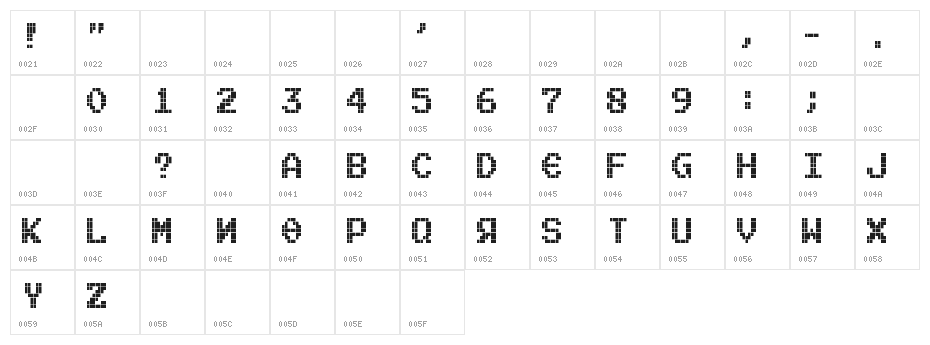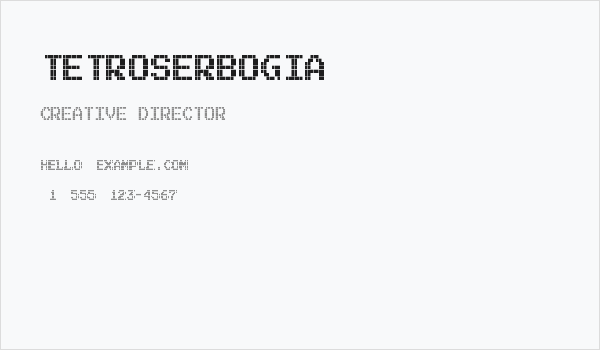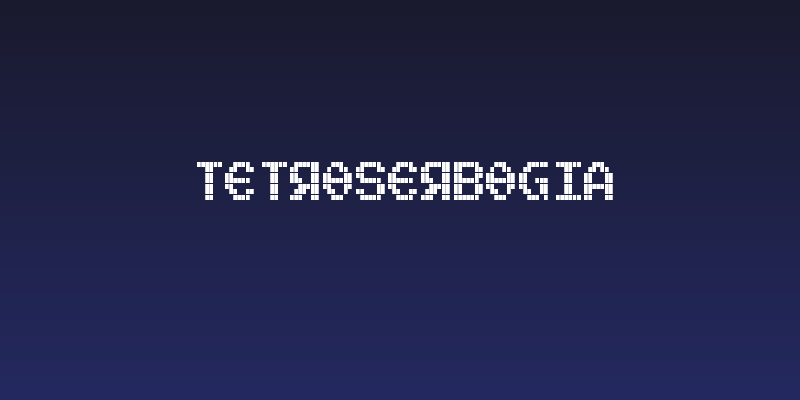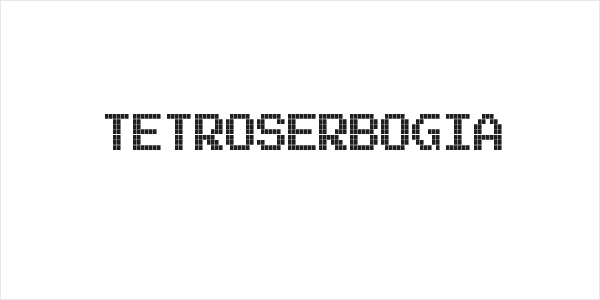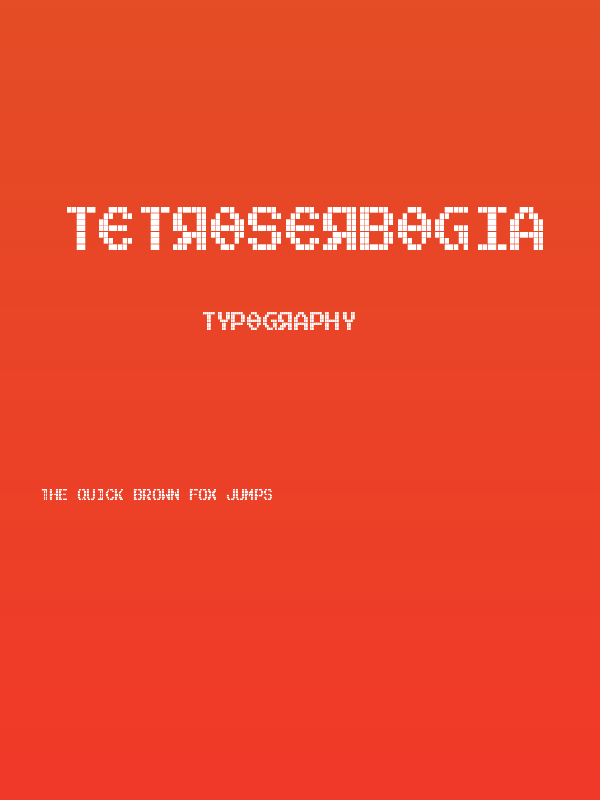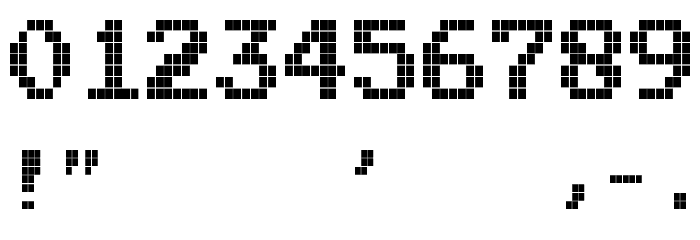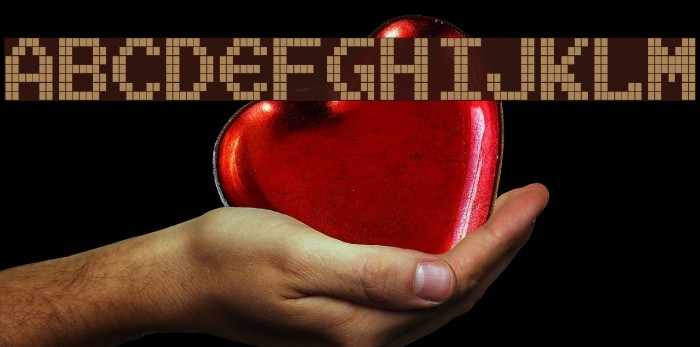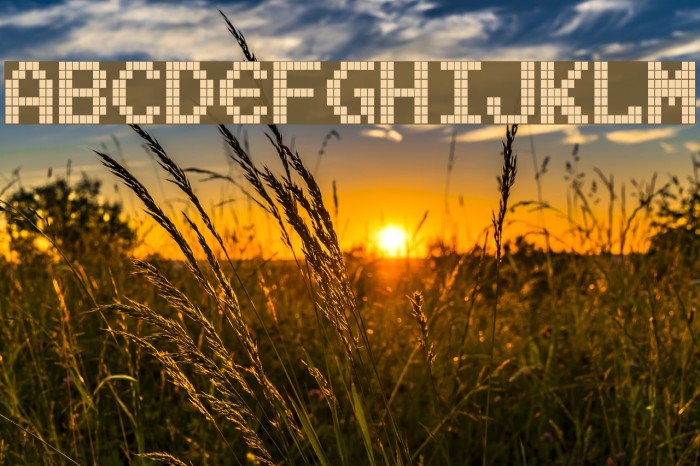
Tetroserbogia Font
Tetroserbogia Description
This font features a unique pixelated design, reminiscent of classic video game graphics. Each character is constructed from a grid of small squares, creating a blocky and digital appearance. The uniformity of the squares gives the font a consistent and structured look, while the sharp edges and corners add a sense of precision and modernity. The uppercase and lowercase letters maintain the same pixelated style, ensuring cohesion across different text cases. Numbers and special characters are also designed with the same attention to pixel detail, making the font versatile for various applications. Its distinct style makes it ideal for projects that aim to evoke nostalgia or a retro digital aesthetic.
| Overall Style | Retro, Digital |
| Proposed Projects | Ideal for video game designs, retro-themed posters, digital art projects, and tech-related branding. |